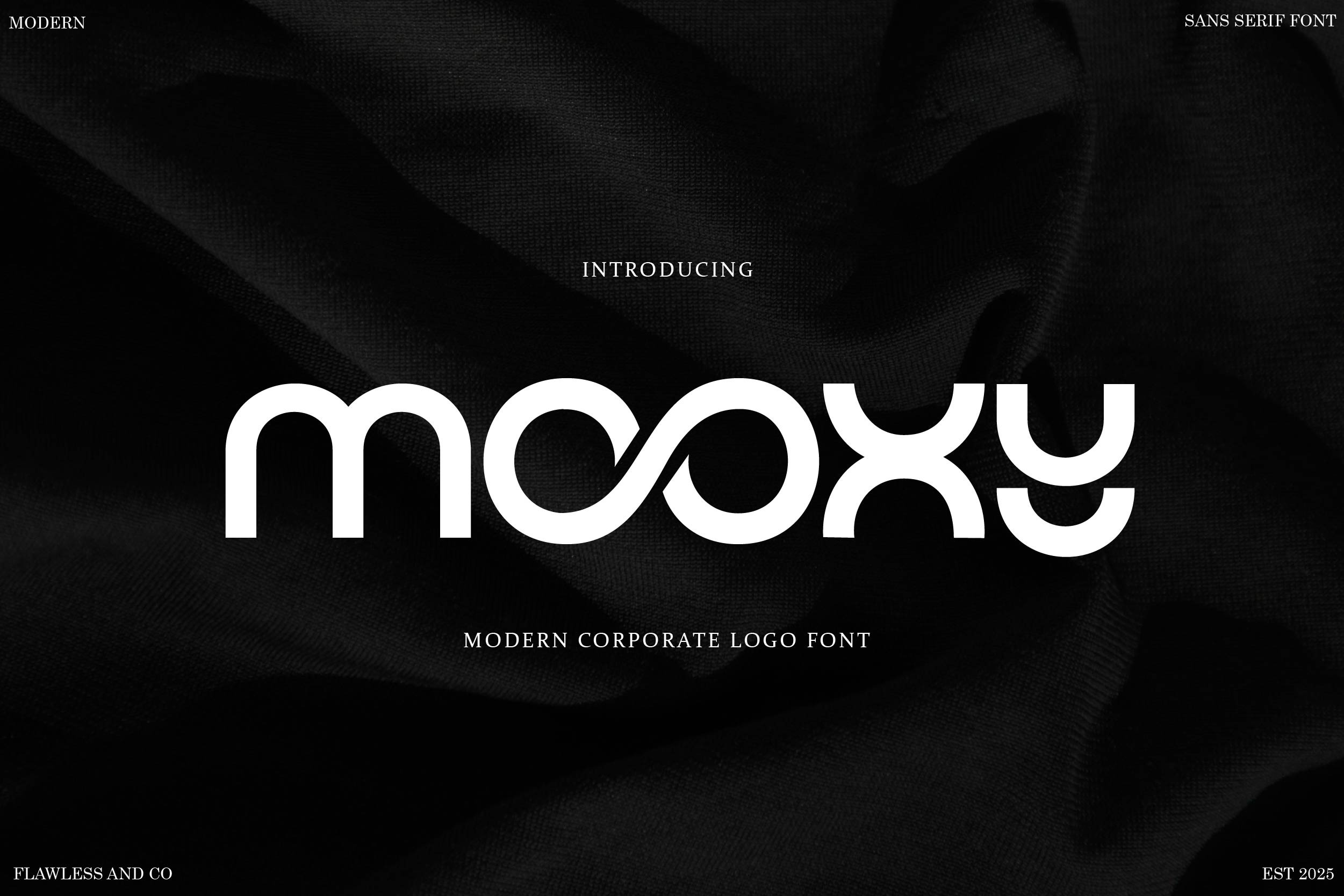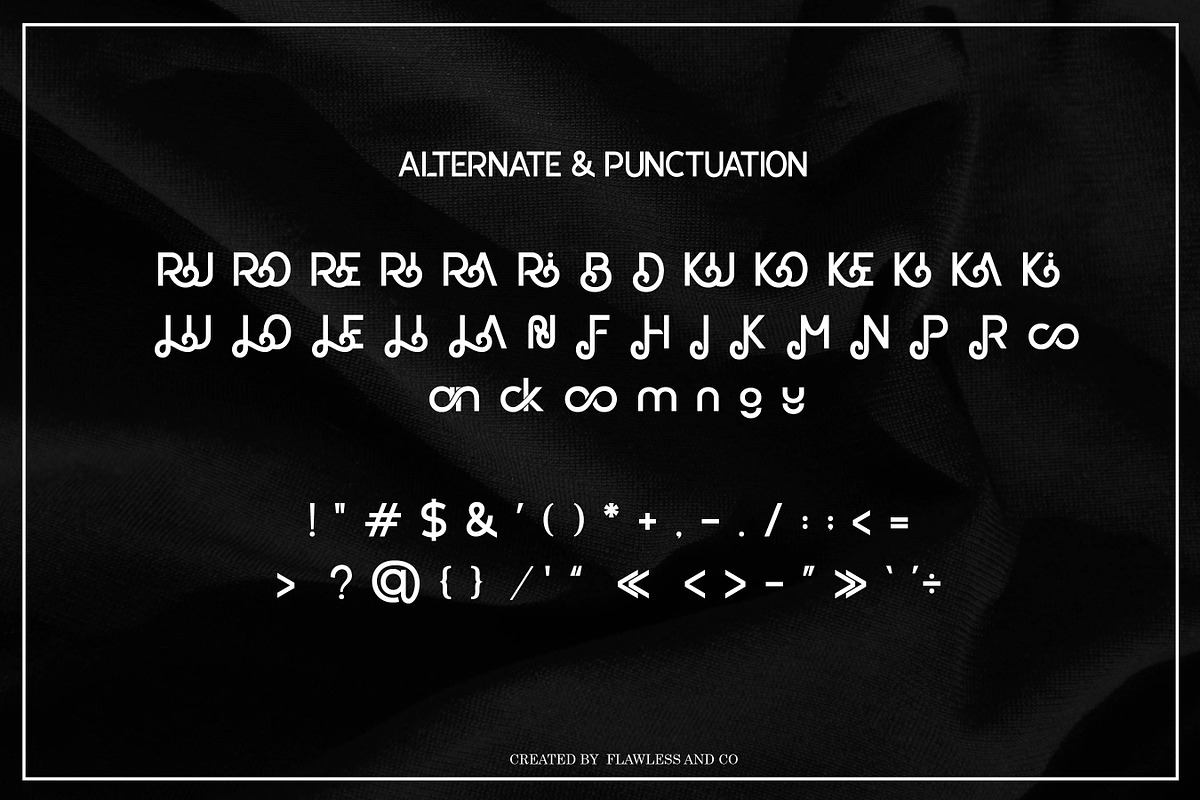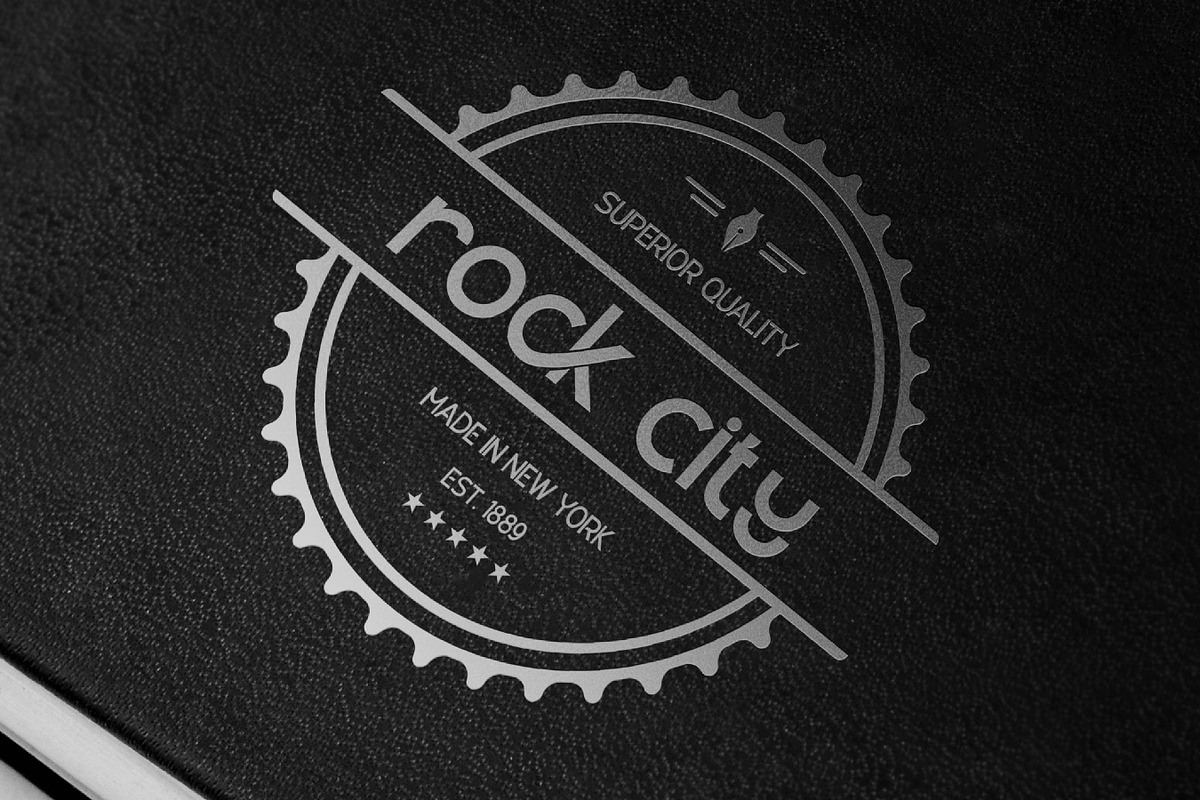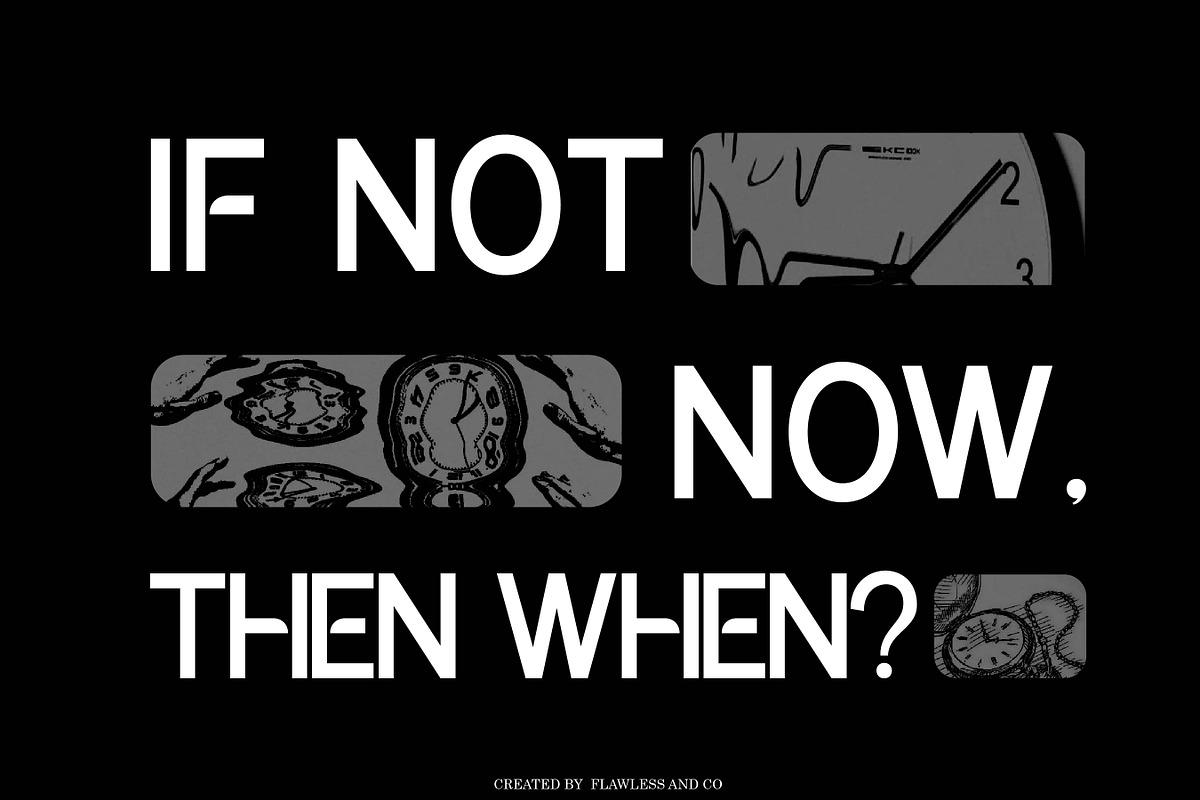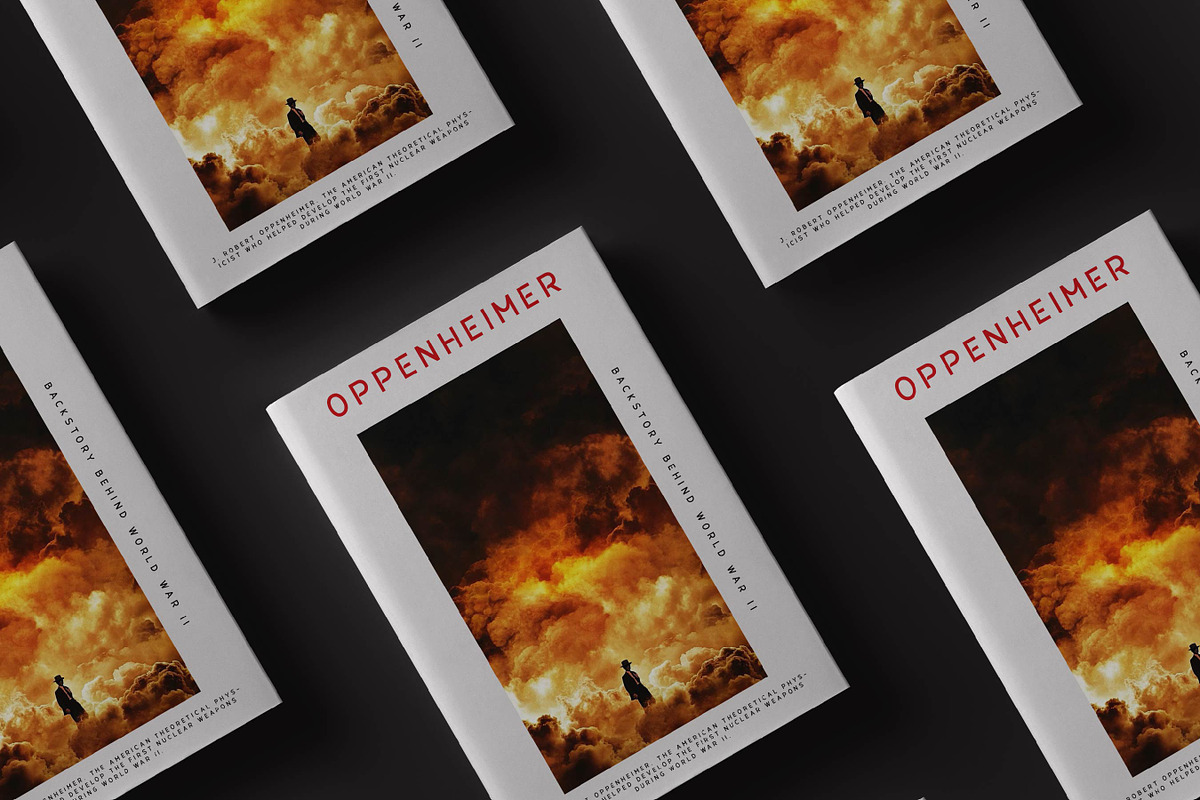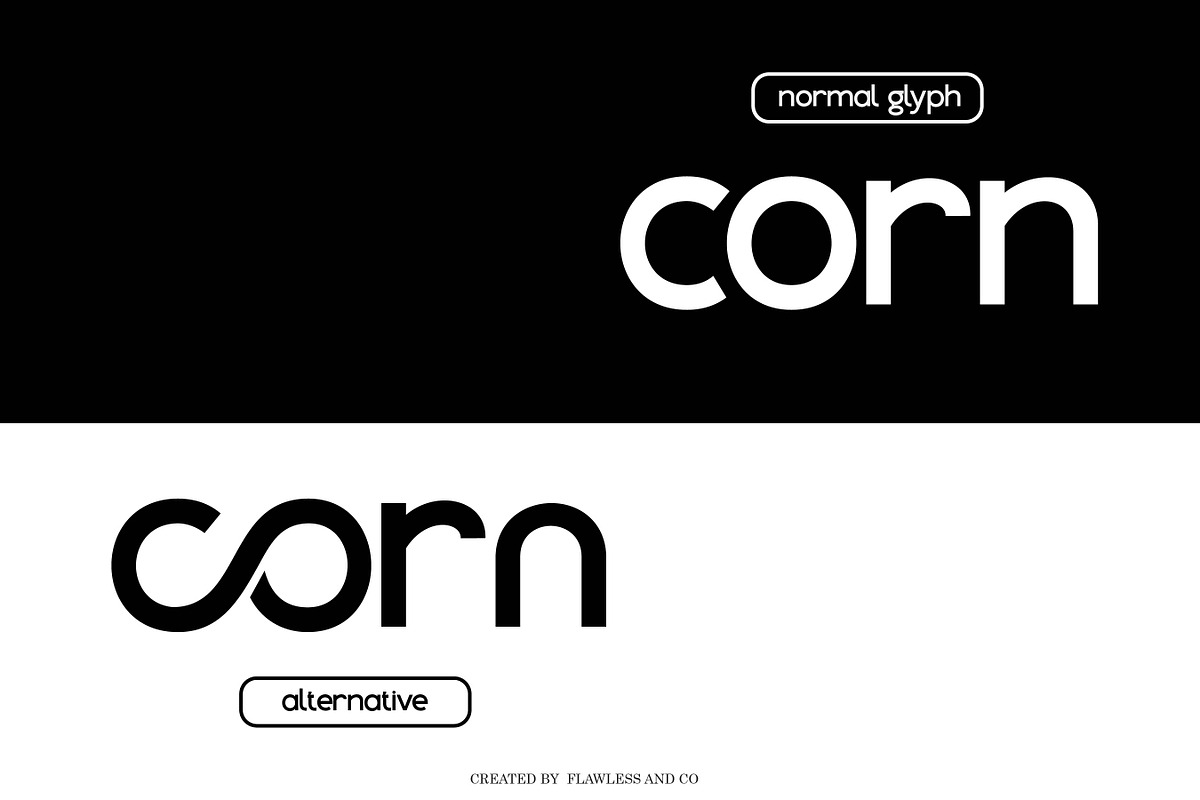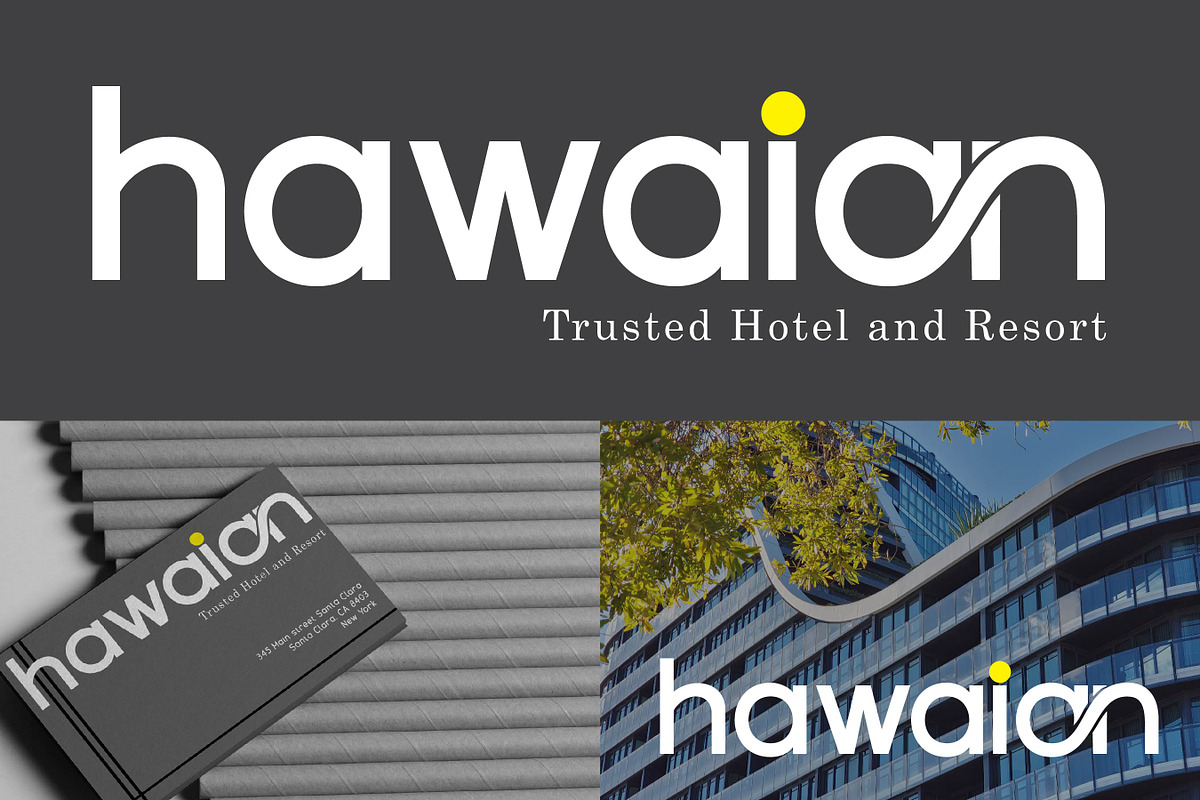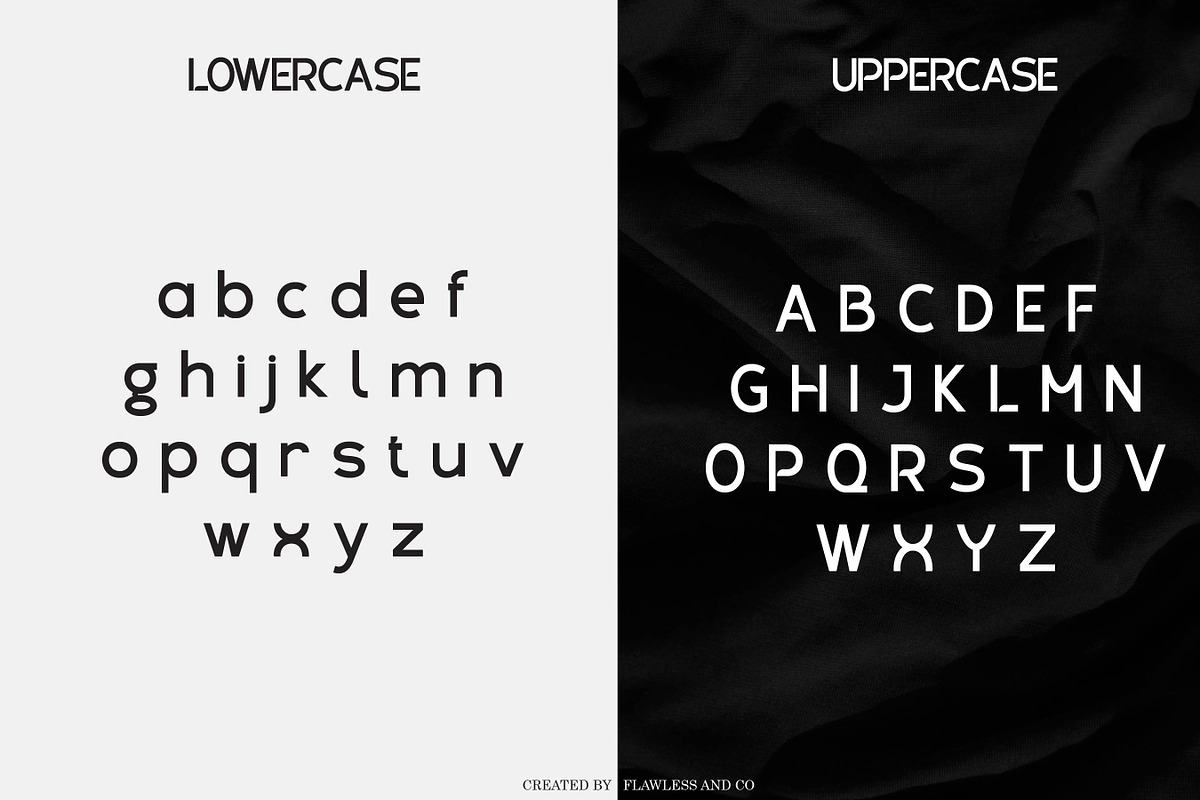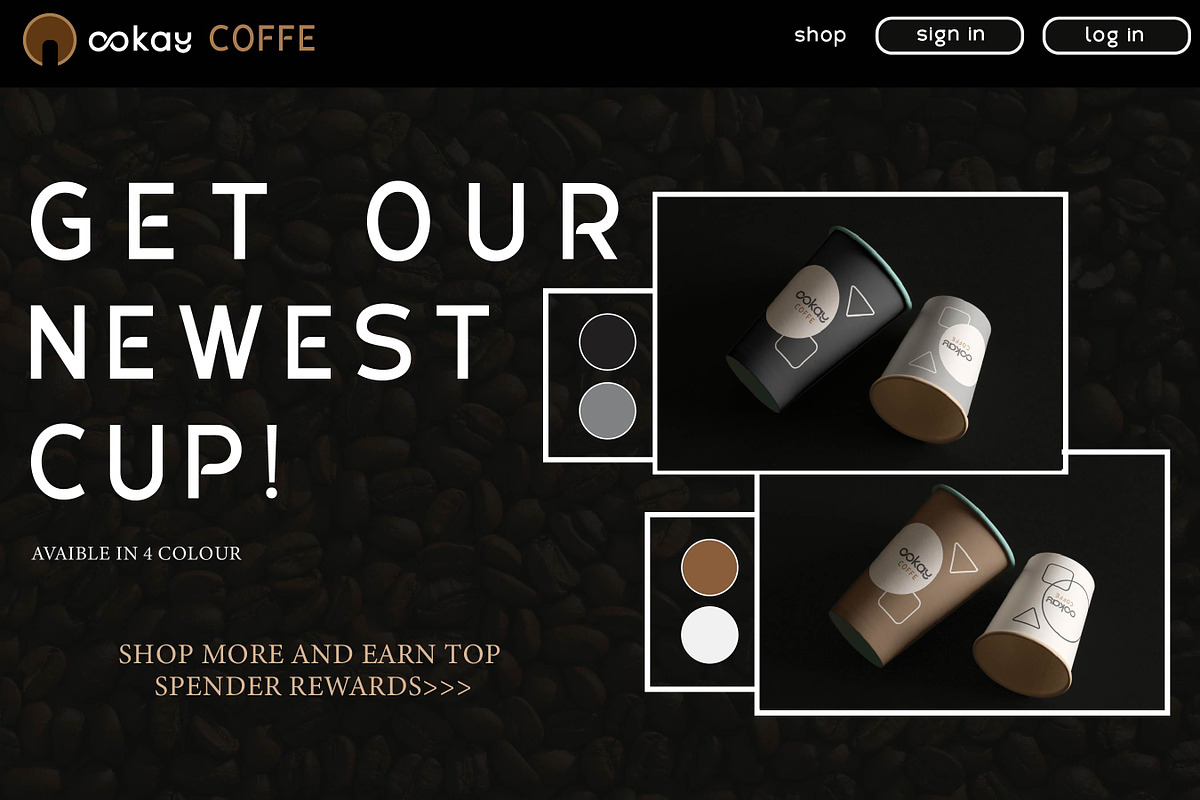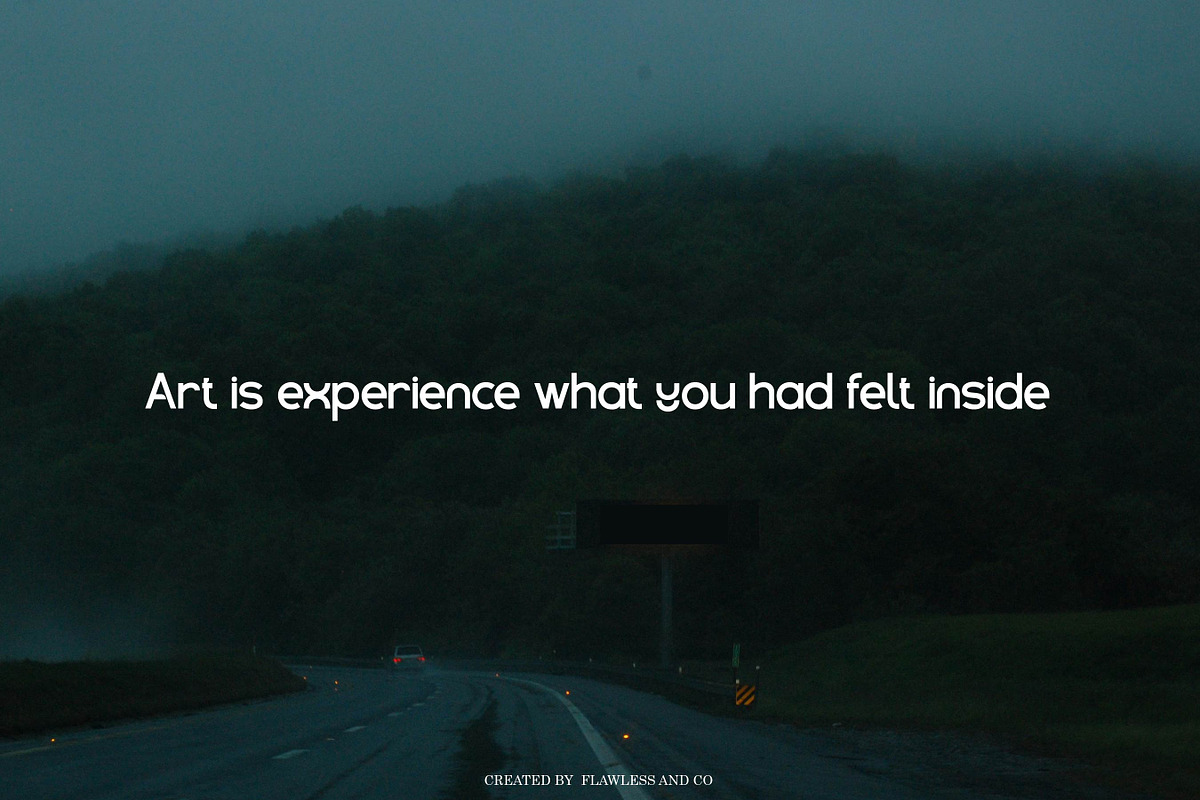
Mooxy - Modern Corporate Logo Font
Mooxy is a modern logo font designed to bring a sleek and professional touch to branding and identity projects. With its clean lines and contemporary style, this font is perfect for logos, business branding, packaging, website headers, and marketing materials. Mooxy offers a sophisticated yet minimalistic look, making it ideal for businesses and creatives looking for a bold and memorable visual identity.
Multilingual Uppercase alphabet A-Z Lowercase alphabet a-z Numbers 0-9 Some punctuation Alternates & Ligatures